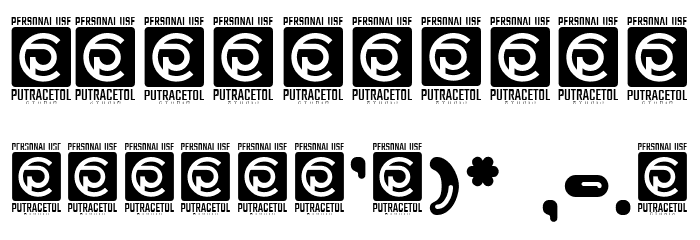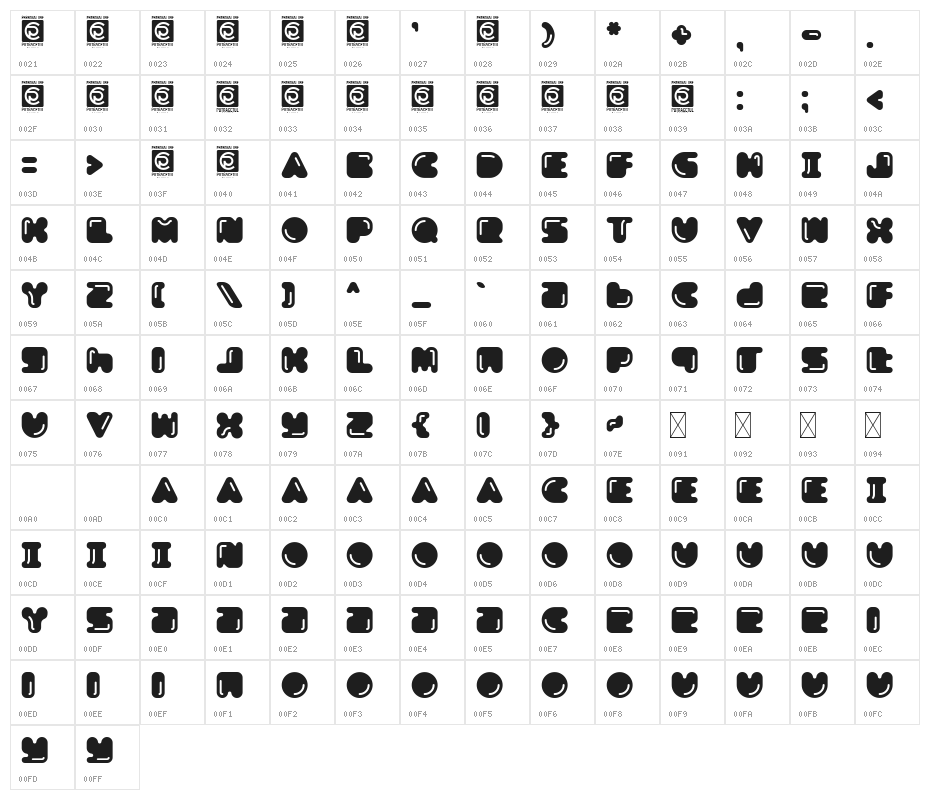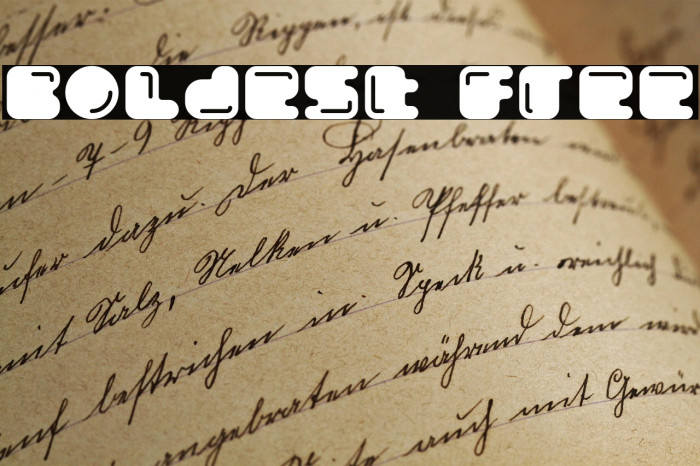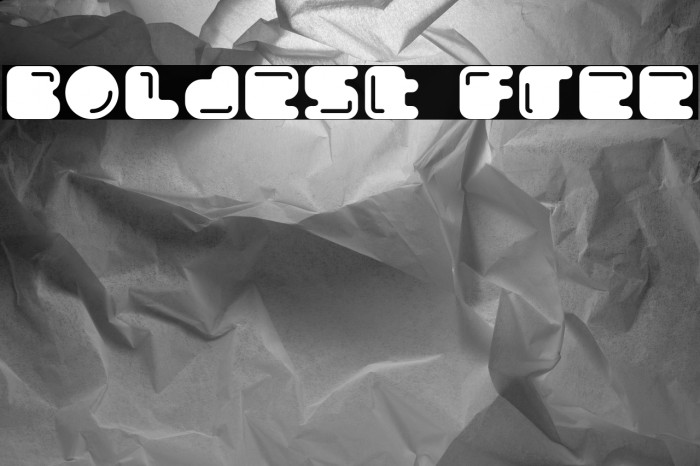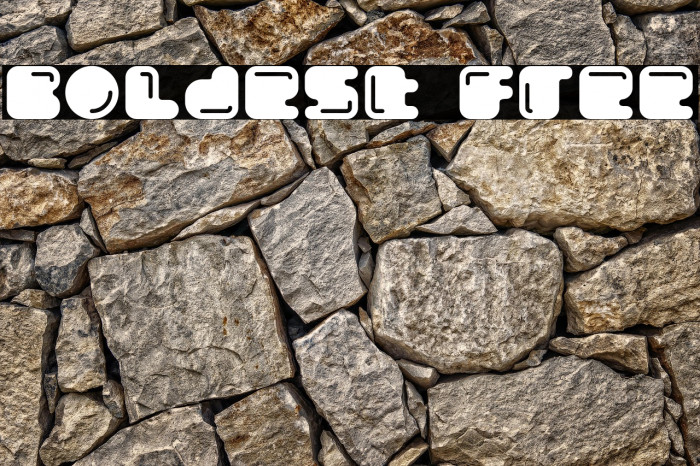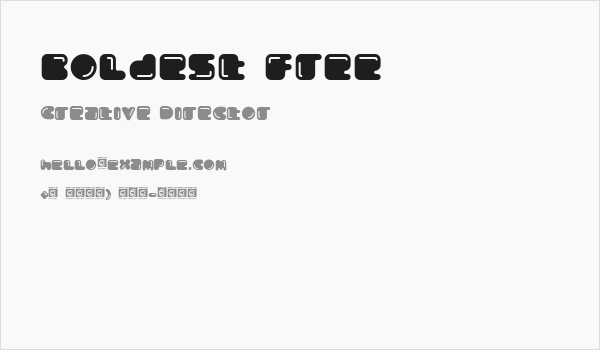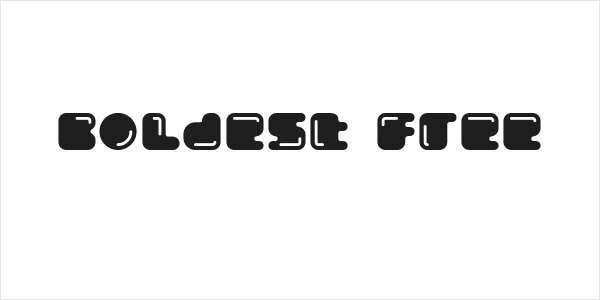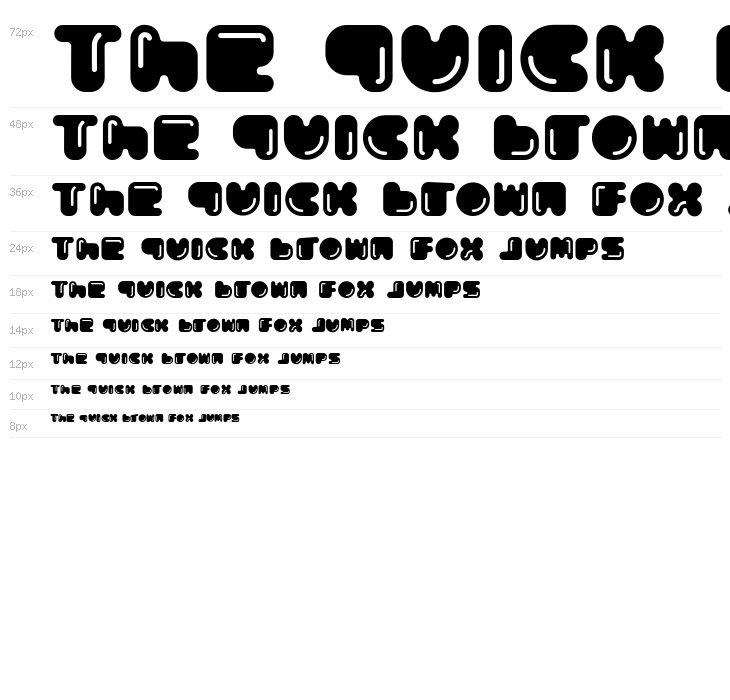
Boldest Free Font
Boldest Free Description
This font features a bold, playful design with rounded, chunky letterforms that create a sense of fun and creativity. The characters are heavily stylized with thick strokes and minimal contrast, giving them a uniform appearance. The rounded edges and solid shapes make it highly distinctive and eye-catching. It is well-suited for projects that require a strong visual impact, such as posters, logos, and headlines. The font's unique style is both modern and slightly retro, making it versatile for various design themes.
| Overall Style | Modern, Retro |
| Proposed Projects | Ideal for posters, logos, headlines, and any design needing a strong visual impact. |